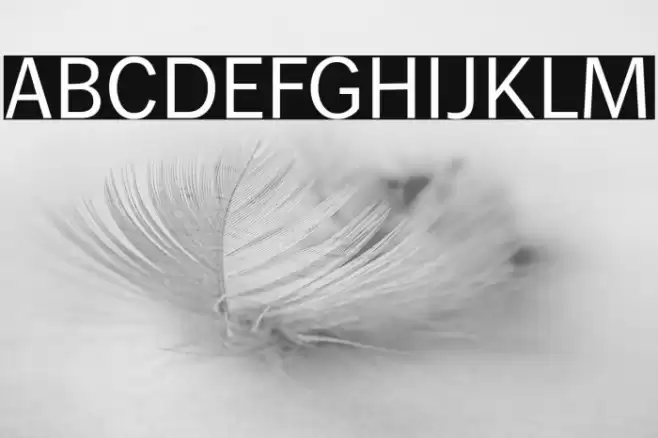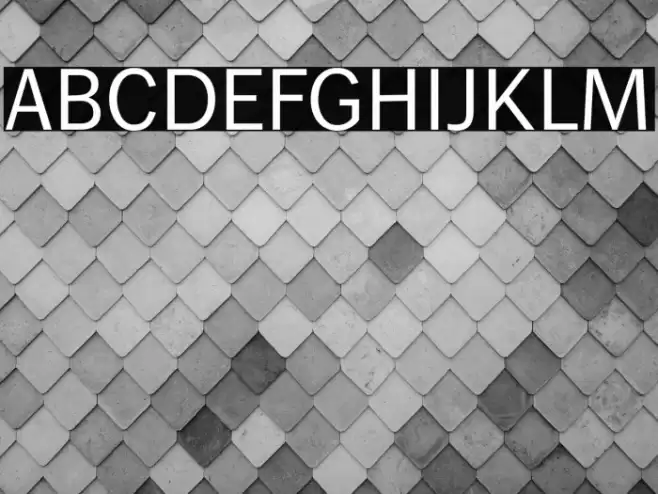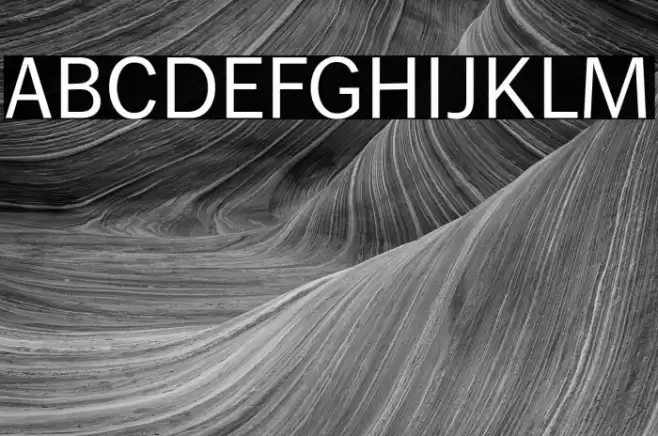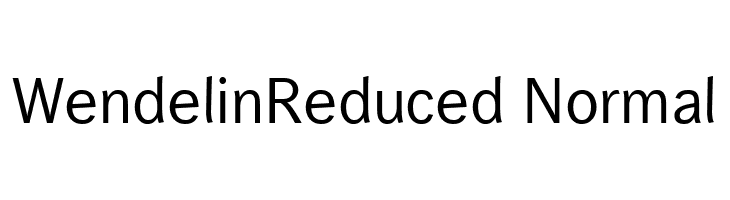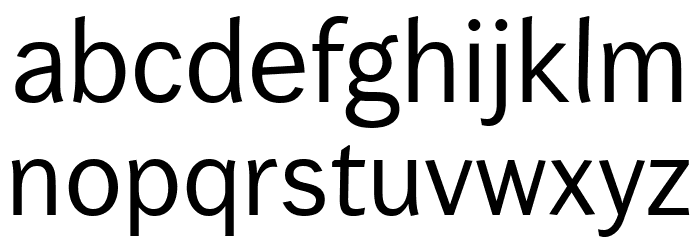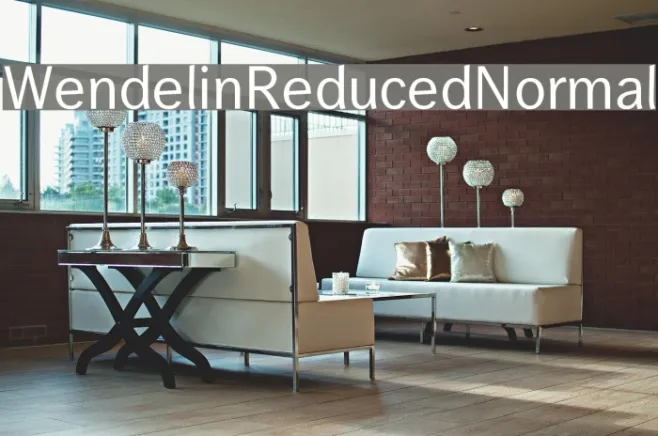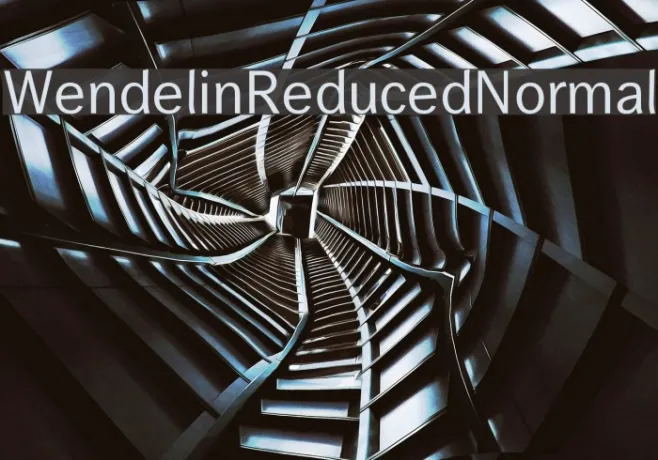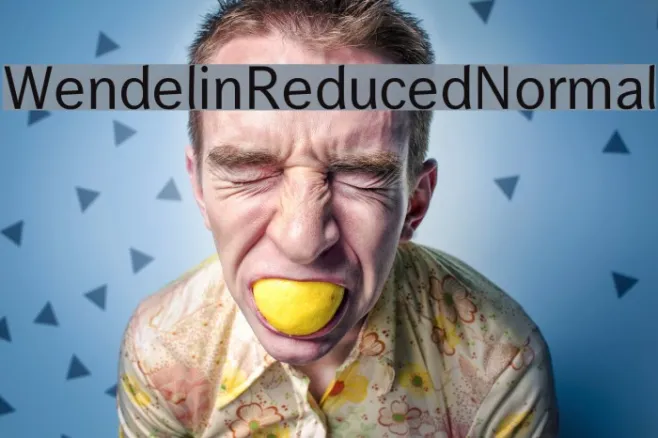
WendelinReduced-Normal Font
WendelinReduced-Normal Description
This font features a clean and modern sans-serif design with a focus on readability and simplicity. The characters are evenly spaced, with a consistent stroke width that gives it a uniform appearance. The uppercase letters are bold and prominent, while the lowercase letters maintain a balanced proportion, ensuring clarity in both headings and body text. The numerals are straightforward and align well with the overall style, making them suitable for various applications. Special characters are distinct and easily recognizable, adding to the font's versatility.
A modern sans-serif font with clean lines and balanced proportions from Sans Serif fonts.